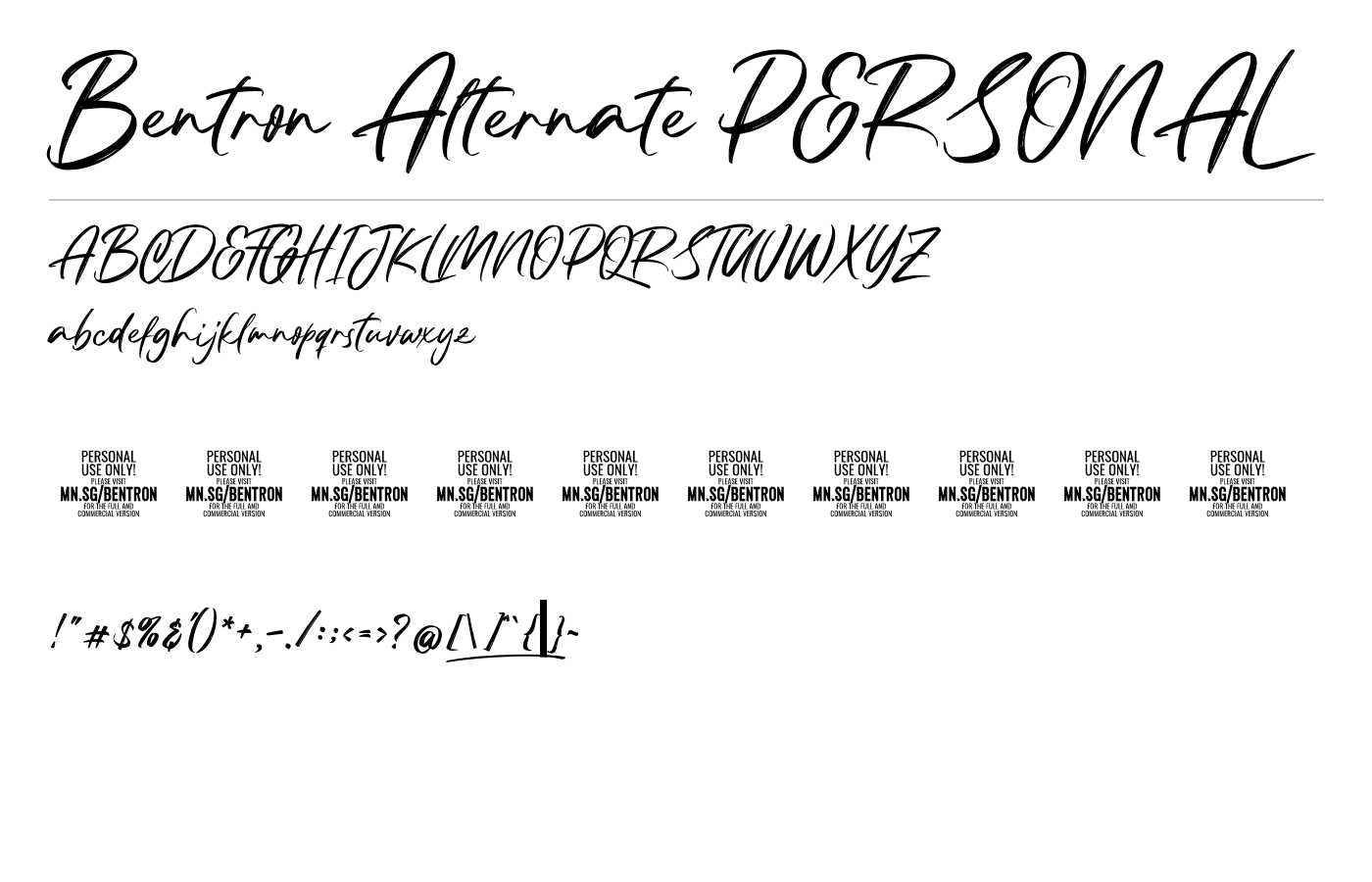
Bentron Alternate PERSONAL is a lively and elegant script font with a handwritten, casual style that feels both personal and artistic. Its slender, flowing strokes and high contrast between thick and thin lines give it a modern, stylish vibe, perfect for adding a touch of creativity and warmth to designs. This font works beautifully for invitations, branding, or social media where a unique, handcrafted look is desired.